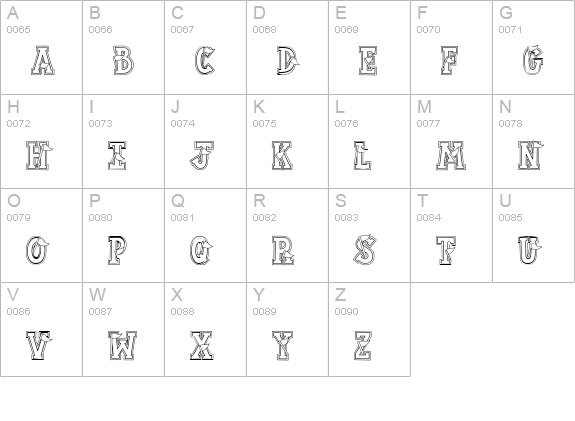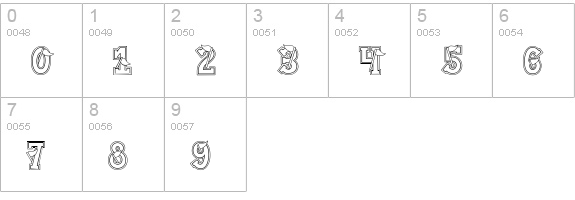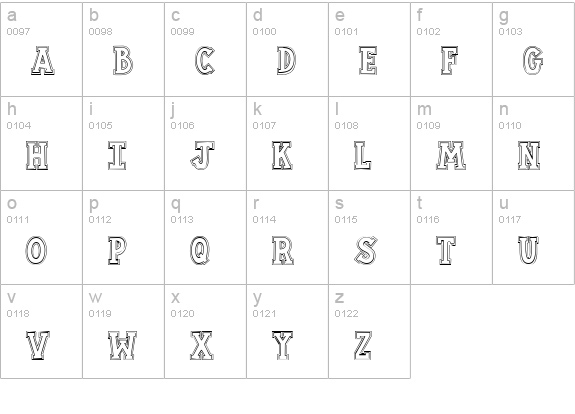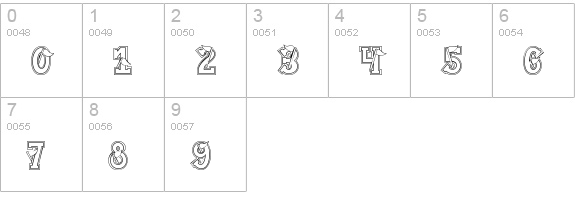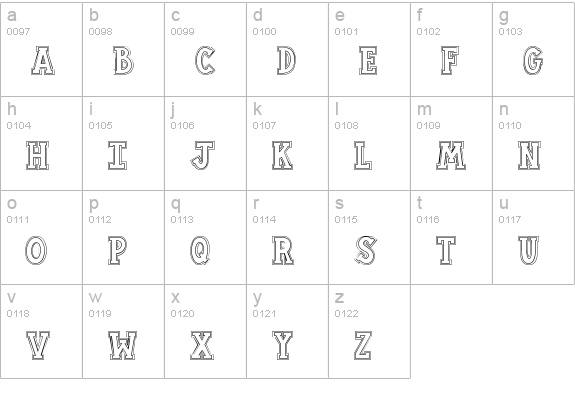
CK Spirit Font Details
CK Spirit is a captivating and stylish font that exudes a sense of elegance and sophistication. With its clean lines and modern aesthetic, this font is perfect for a wide range of design projects, from branding to print materials. Its versatility makes it a go-to choice for designers looking to add a touch of class to their work. The best part is that CK Spirit is available for free download at FontsMarket.com. This means you can easily access this stunning font and incorporate it into your designs without any cost. Don't miss out on the opportunity to enhance your projects with the beauty and charm of CK Spirit - download it today and elevate your designs to the next level.